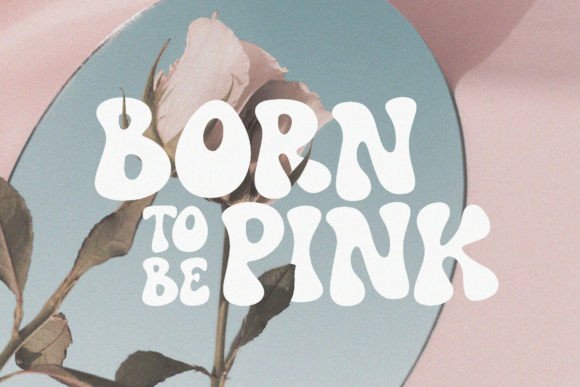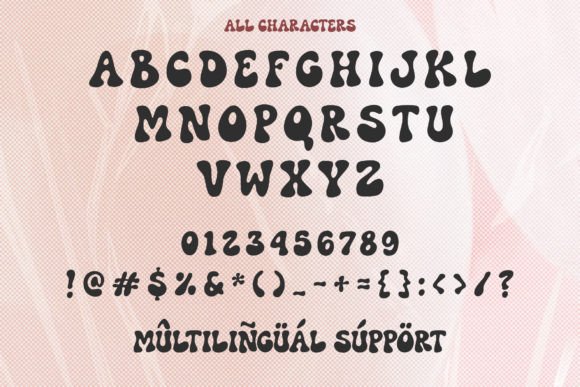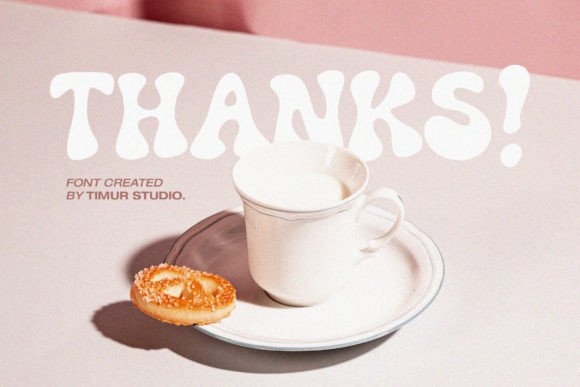
Introduction to Party Vibes Font
Do you remember that moment when you finally get the creative spark you’ve been waiting for? The one that makes you exclaim, “This is it! I’m going to create something amazing!” For designers, it’s the thrill of the hunt for the perfect font that sets the tone for a project. And, if you’re anything like us, you’ve been on the lookout for a font that captures the essence of a fun and festive atmosphere. Well, we’ve got the perfect solution for you – the Party Vibes Font!
This lively and energetic font is a game-changer for any creative project, from event invitations to posters and digital designs. With its bold and vibrant letterforms, the Party Vibes Font offers a high-quality design resource that’s perfect for adding a groovy and party-like vibe to your work. Whether you’re looking for a free download or want to elevate your designs with a premium font, the Party Vibes Font is sure to bring a lively and energetic touch to your projects.
Key Features of Party Vibes Font
- High-quality, unique font design ideal for creative projects, including party invitations, posters, and social media graphics.
- Designed with a transparent background, making it easy to customize and use in different design contexts.
- Perfect for designers and artists looking for a bold, eye-catching font to add a party vibe to their work.
- Size: Supports a wide range of font sizes, from 8pt to 1000pt, making it versatile for various design applications.
- Unique characteristics: Distinctive, hand-drawn style with bold lines and vibrant colors, creating a lively atmosphere perfect for party-themed designs.
Honest Review: Party Vibes Font
I recently stumbled upon the Party Vibes Font and I must say it’s a great addition to my design resource library. As a designer, I’m always on the lookout for high quality fonts that can elevate my creative projects.
- ✨ The font’s vibrant and playful style is perfect for any project that needs a fun and energetic vibe.
- ✨ The transparent background option is a nice touch, allowing for easy layering and customization.
- ⚠️ The font may not be suitable for more formal or professional projects, as its playful style may come across as unprofessional.
- ⚠️ Some of the characters may not be as polished as others, which can be a bit distracting.
Overall, I’m impressed with the Party Vibes Font and would definitely recommend it to designers working on creative projects. While it may not be perfect, its strengths far outweigh its limitations, making it a valuable addition to any design resource library.
Transparent Background and Customization
The Party Vibes Font comes with a transparent background, making it easy to customize and combine with other design elements. You can also experiment with different font sizes, colors, and styles to get the most out of this versatile design resource.
The Party Vibes Font is perfect for a variety of creative projects, including party invitations, social media graphics, and promotional materials. Its playful and energetic vibe makes it a great choice for any project that needs to stand out.
To get the most out of the Party Vibes Font, try combining it with bold and bright colors, and experiment with different font sizes and styles. You can also use it in conjunction with other design elements, such as graphics and images, to create a unique and eye-catching look.
Alternatives to Party Vibes Font
1. Funky Monkey Font
The Funky Monkey Font is a great alternative to Party Vibes Font for designers looking for a fun and playful font. It’s perfect for creative projects such as party invitations, social media graphics, and promotional materials. This font features a high-quality design with a transparent background, making it easy to use on any background.
Compared to Party Vibes Font, Funky Monkey Font has a more relaxed and casual feel, making it ideal for projects that require a laid-back vibe.
2. Neon Lights Font
The Neon Lights Font is a modern and eye-catching alternative to Party Vibes Font. It’s perfect for designers who want to add a touch of glamour and sophistication to their creative project. This font features a high-quality design with a transparent background, making it easy to use on any background.